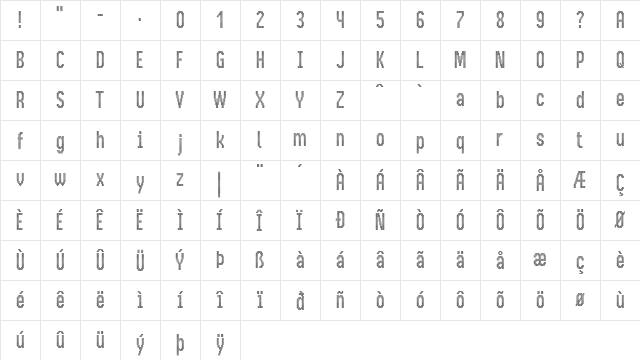
BusMatrix Condensed Condensed
Design Context for BusMatrix Condensed Typeface
BusMatrix Condensed is a composed and adaptable typeface that performs quietly and consistently across a wide range of design contexts. Its narrow stance lets it pack a punch even in space-constrained designs.